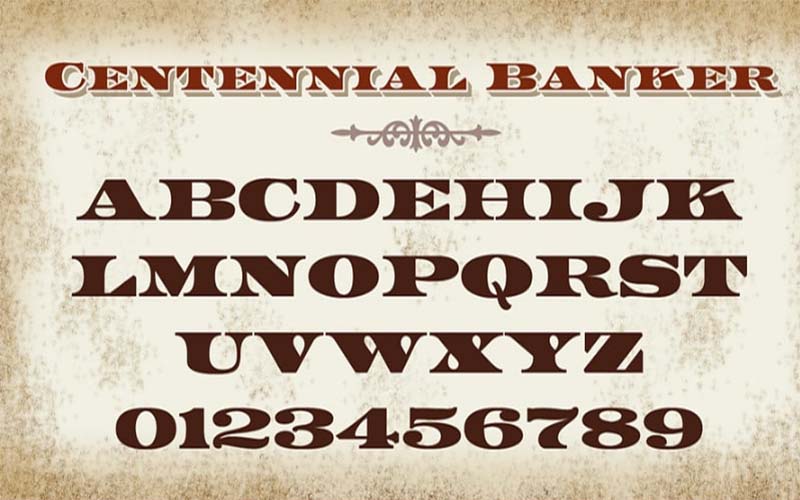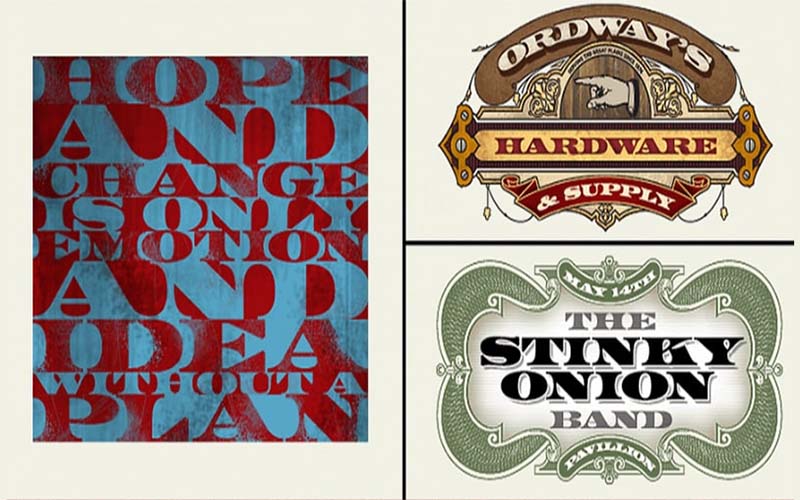
LHF Centennial Banker Font is an elegant display typeface. The bold, crisp, and traditional characters give it a more appealing and fashionable appearance.
A famous designer Mike Jackson took charge of creating this font for the first time and was published by Mike Jackson. It consists of stylish and effective characters that give a professional look to your projects.
The Subfamily of this font is regular and contains only a single style such as the “LHF Centennial Banker Regular” font. This style makes this font famous around the world.
A lovely texture-free version font is available in all lowercase, uppercase, and capital letters, as well as numbers, and unique characters. Let’s look at the texture for a moment.